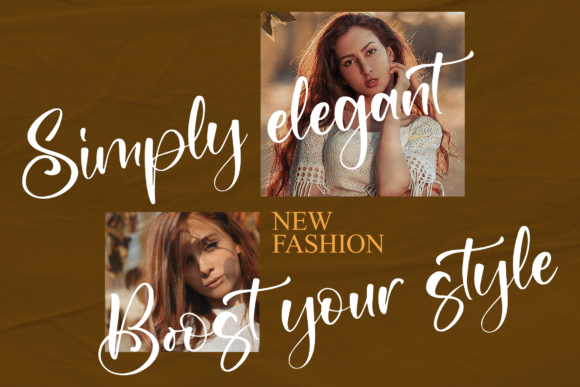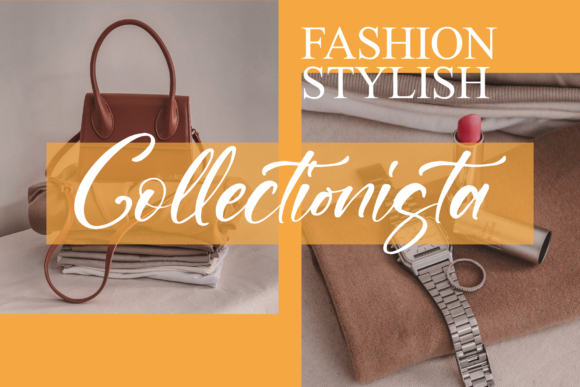
Destinasy Font
db-ku.com - Script & Handwritten -- Destinasy – Modern Script Font , from Letterfabric Studio, suitable for any projects such as: logos, branding projects, homeware designs, product packaging, mugs, quotes, posters, shopping bags, t-shirts, book covers, name card, invitation cards, greeting cards, label, photography, watermark, special events, and all your other lovely projects that need a beautiful script taste.